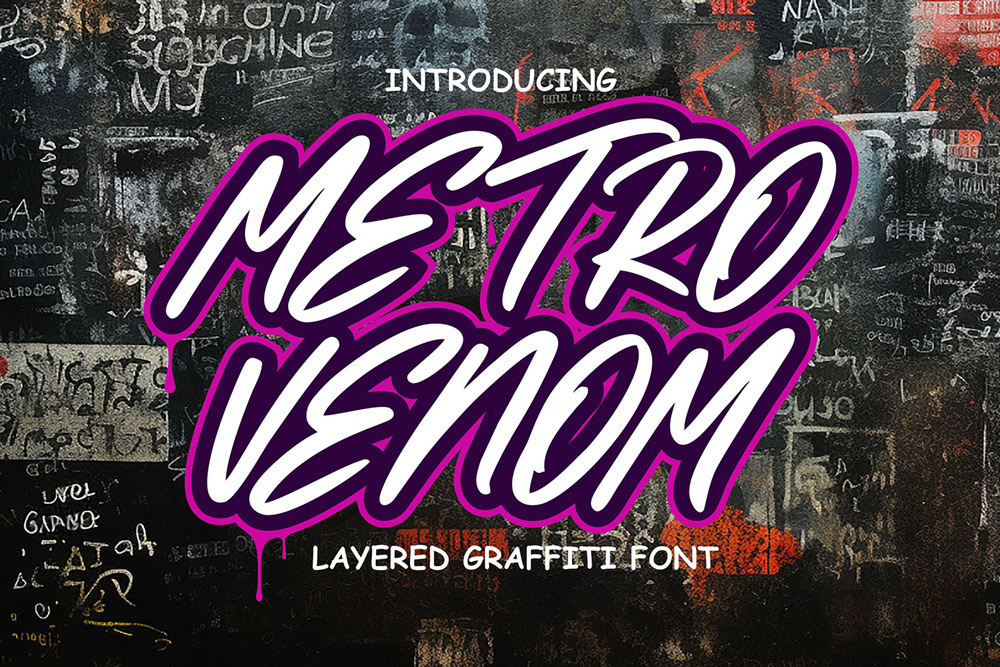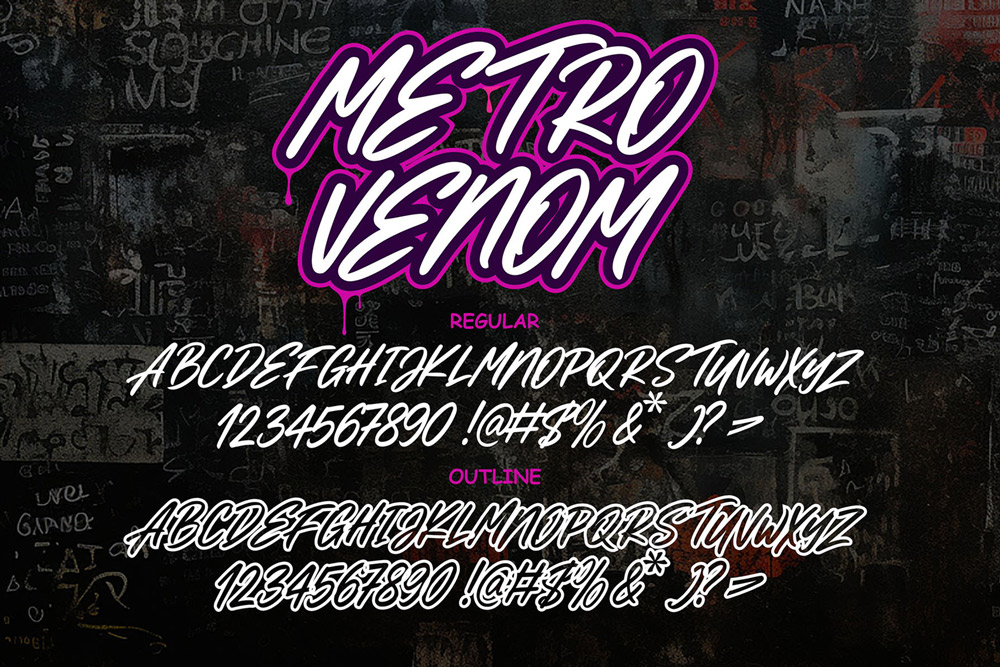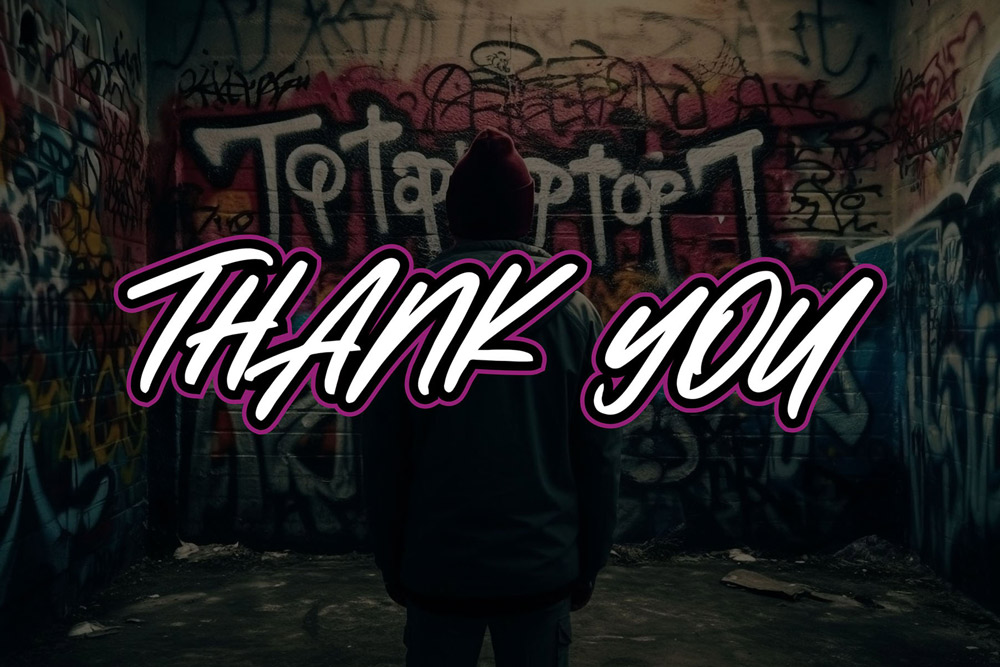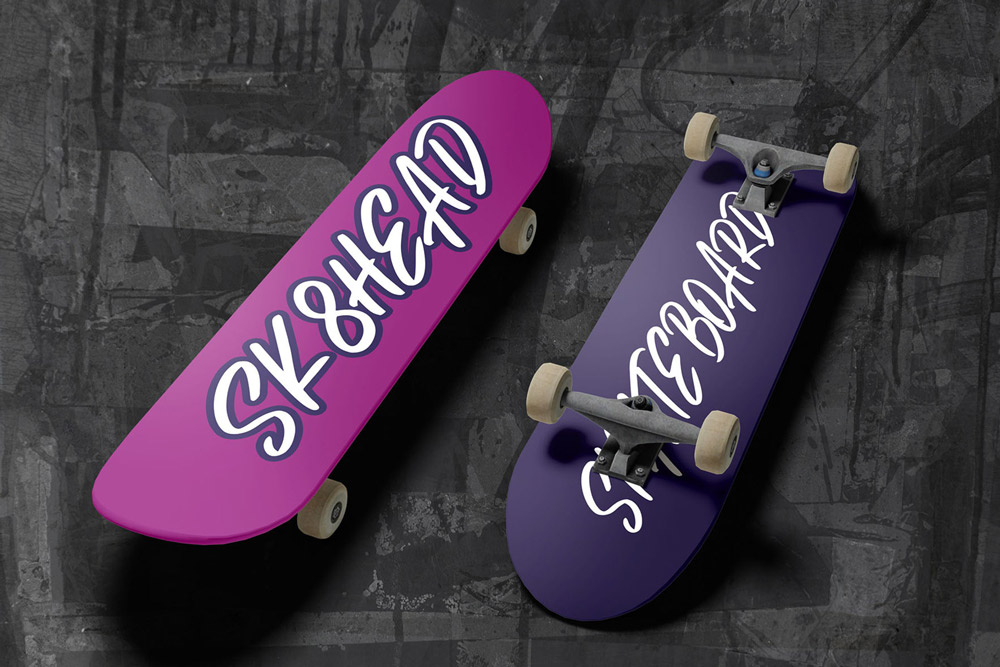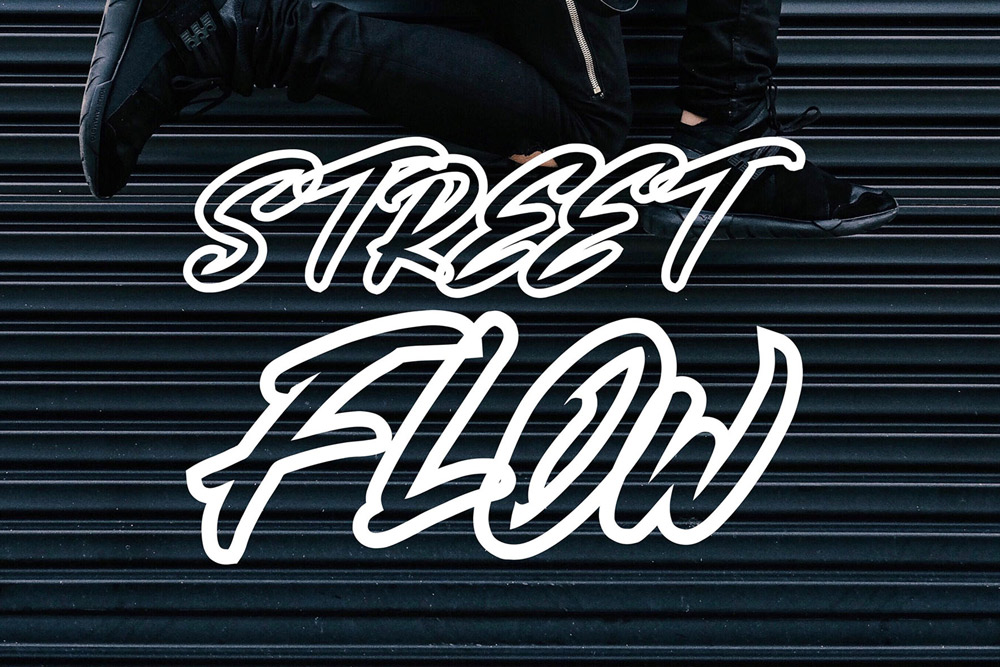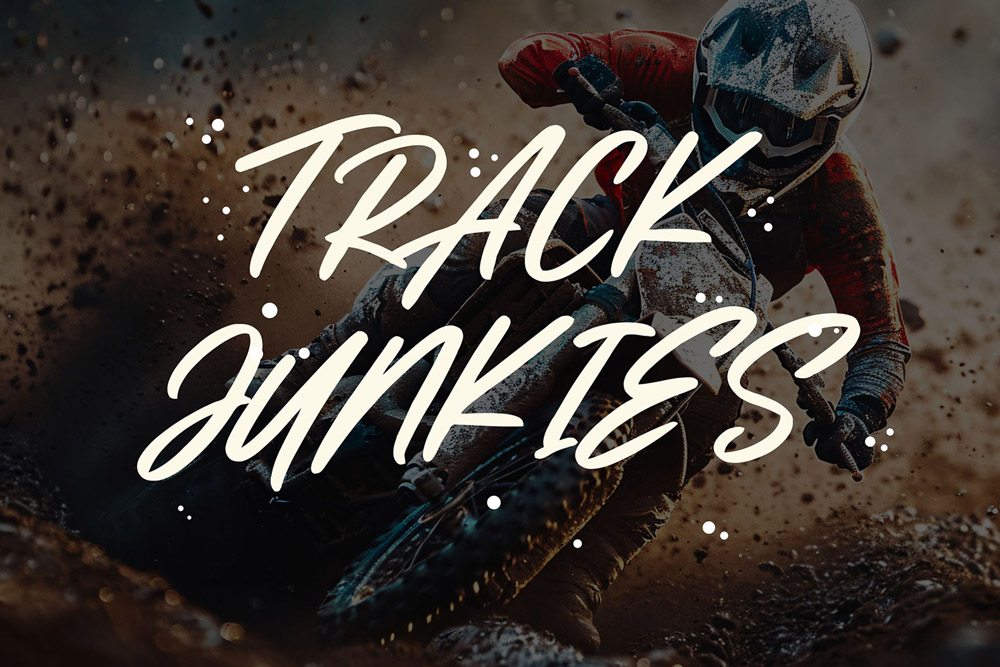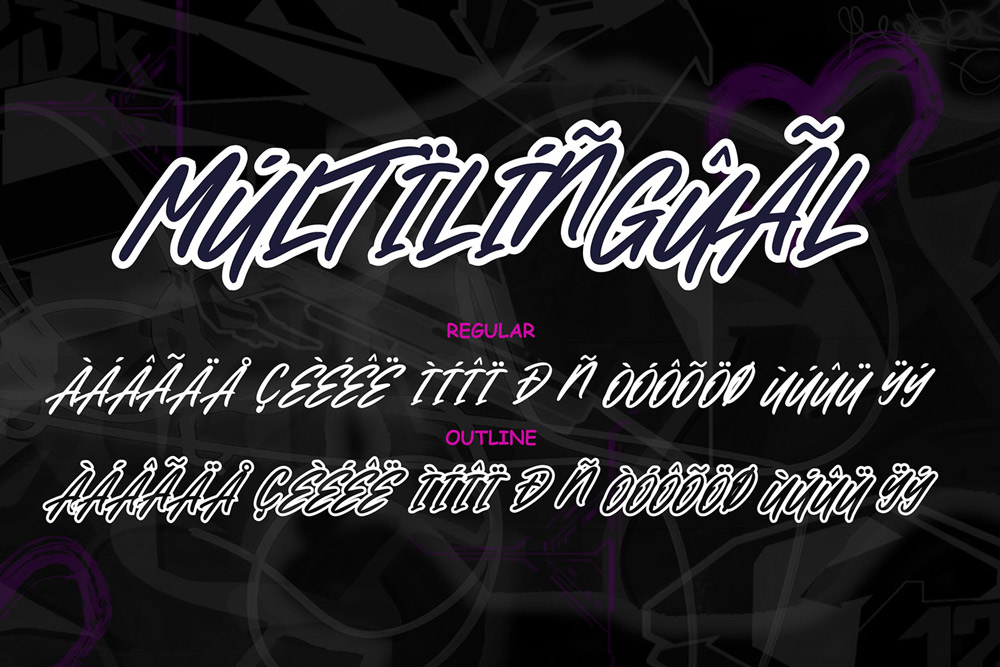
About Metro Venom
Unleash the raw rhythm of the city with Metro Venom – Outlined Graffiti Brush Font, a bold and energetic street-style typeface designed by Cikareotype Studio. Inspired by subway tags, urban walls, and brush-painted graffiti art, Metro Venom captures the power of hand-drawn brush lettering combined with a clean outlined graffiti aesthetic.
This outlined graffiti font is made for designers who crave movement, rebellion, and artistic freedom. Each stroke is alive with texture and attitude, embodying the essence of true street culture. With uppercase characters, multilingual support, and two complete styles (Regular & Outline), Metro Venom gives you full creative control to build authentic graffiti compositions that look as if they were painted straight onto concrete.
From Brush Strokes to Street Legends
Metro Venom takes inspiration from the chaos and beauty of metropolitan graffiti—every curve reflects speed, rhythm, and control. The brush texture delivers raw personality, while the outlined version adds visual clarity and contrast, making your text stand out on both digital and printed surfaces.
It’s more than just a graffiti brush font; it’s a design tool that brings street attitude to every project. Whether you’re crafting a poster, album cover, clothing label, or YouTube thumbnail, Metro Venom turns simple typography into a bold statement.
The Perfect Blend of Brush and Outline Style
Metro Venom – Outlined Graffiti Brush Font perfectly balances raw expression and visual precision. The Regular version captures bold brush energy for organic movement, while the Outline version adds a graphic, layered dimension that’s ideal for titles, shadows, and color effects.
This dual-style system lets designers:
-
Build layered graffiti text by stacking solid and outline versions.
-
Create dynamic street poster titles with multiple color layers.
-
Mix brush realism with outlined clarity for balanced readability.
The result? Typography that looks handmade yet digitally polished—ideal for streetwear branding, art exhibitions, festival graphics, or social-media campaigns.
Why Metro Venom Is Built for Street Designers
Modern design thrives on authenticity, and Metro Venom delivers exactly that. It combines the energy of hand-painted graffiti with the control of digital design. Each glyph was meticulously created to simulate the feel of a graffiti brush dipped in thick paint, sweeping confidently across a wall.
This bold graffiti font stands out for its versatility—aggressive enough for street art, refined enough for commercial design. You can use Metro Venom for:
-
Streetwear Logos & Clothing Prints – Graffiti-inspired text that defines brand identity.
-
Music Album Covers & Posters – Bring underground style to punk, hip-hop, or EDM visuals.
-
Skate & Lifestyle Branding – Perfect for stickers, boards, and merch.
-
Event Promotion – Grab attention for concerts, street festivals, and art shows.
-
Social Media Design – Perfect for Instagram posts and YouTube covers with attitude.
✅ Two Complete Styles: Regular & Outlined for maximum flexibility.
✅ Uppercase Characters: Strong and impactful for headlines and logos.
✅ Multilingual Support: Expand your designs for a global audience.
✅ Authentic Brush Texture: Realistic hand-painted feel.
✅ Outlined Version Included: Perfect for layering and 3D graffiti effects.
✅ Optimized for Print & Digital: Flawless in posters, apparel, and online graphics.
✅ Street-Inspired Authenticity: Created for modern graffiti and streetwear design.
Why Designers Love Metro Venom
Designers love Metro Venom because it’s both wild and usable. It captures the freehand expression of graffiti without losing legibility—a balance that many street fonts struggle to achieve.
Here’s why it’s a must-have:
-
True Graffiti Movement: Every stroke looks natural and fast, mimicking brush speed.
-
Outline Perfection: Layer the outlined version over the filled one for eye-catching contrast.
-
Versatility: Works from large mural titles to small-scale logo marks.
-
Professional Quality: Clean vector edges and perfect kerning across all platforms.
With uppercase characters, multilingual support, and two professional styles (Regular & Outline), Metro Venom is perfect for designers, artists, and brands that want to fuse authenticity with creativity. From streetwear collections to digital posters, from murals to album art, this font brings the pulse of the city right into your design canvas.
Make your words move. Make your designs scream.
Bring the venom of the metro to life.